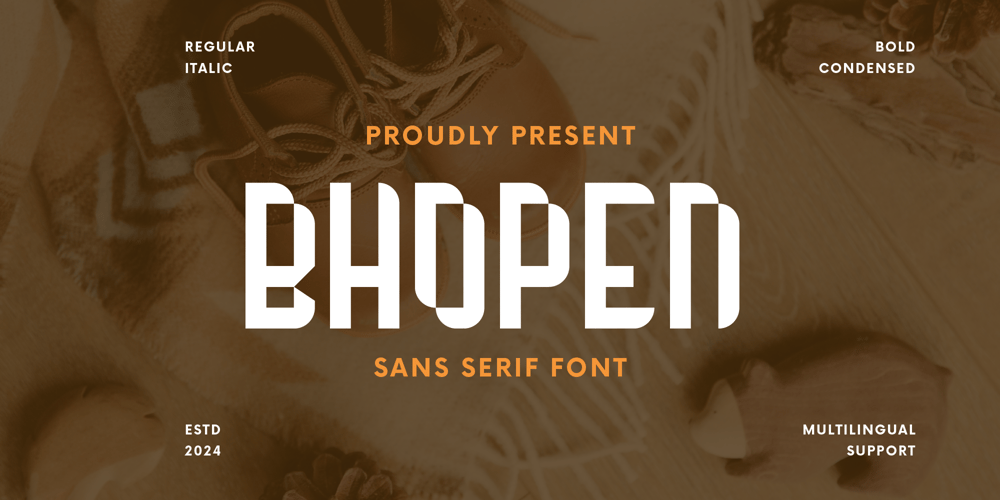
Bhopen
Bhopen font
Bhopen Font Family was designed by Iwan Alwan and published by Artiveko. Bhopen contains 2 styles and family package options. “Bhopen” by Iwan Alwan, a bold sans-serif font with a distinctive flair. Its robust yet unique design makes it perfect for social media posts and banners, commanding attention with every character.With Bhopen, your messages will stand out effortlessly, conveying strength and style in every word. Whether you’re crafting captivating banners or engaging social media content, Bhopen ensures your message is both powerful and memorable. Elevate your designs with Bhopen and make a statement that resonates.